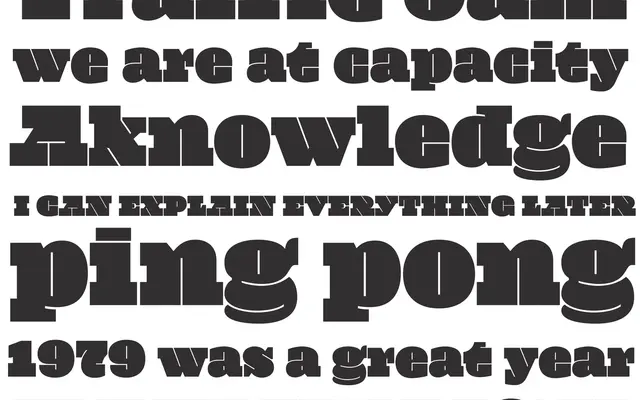
Neplus Ultra
A single-weight ultra-heavy display slab designed for maximum visual impact at large sizes.
Built around excess, this display slab commits entirely to extreme weight as its defining characteristic. The single Ultra style suits headlines, posters and any context where sheer typographic mass is the point. The family offers no lighter grades or italics, making it a dedicated tool rather than a general workhorse.
A slab serif pushed to extreme weight for display use; the foundry explicitly describes it as a slab serif display typeface built around maximum boldness.